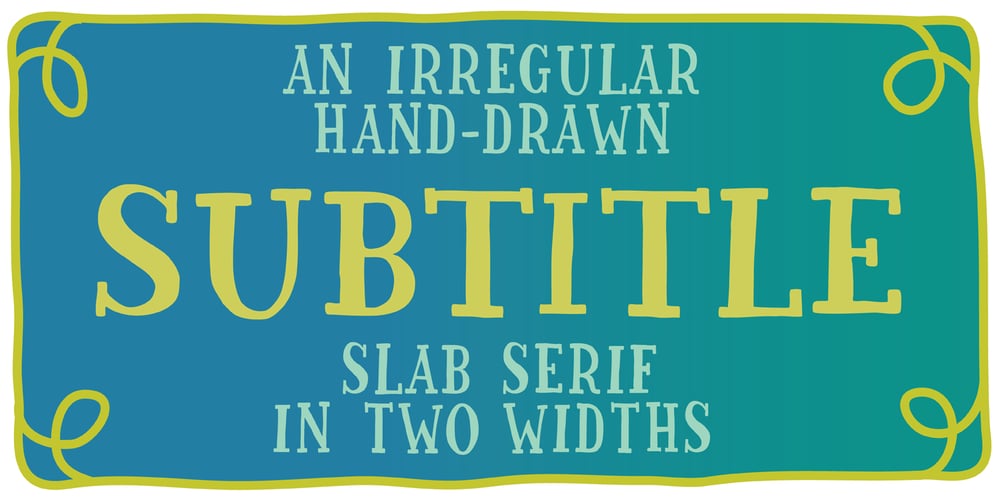
Subtitle Font Family was designed by Leah Eads and published by Type.write.type. Subtitle contains 1 styles and family package options. Subtitle is a handdrawn slab serif that contains condensed and wide width capital letters in one font. With slightly wobbly lines, Subtitle is designed to be legible at a variety of sizes to give that quirky, fun feel to any informal occasion or brand. Central, Eastern and Western European language support included.